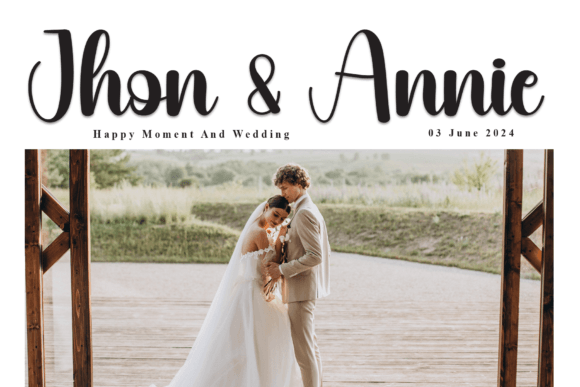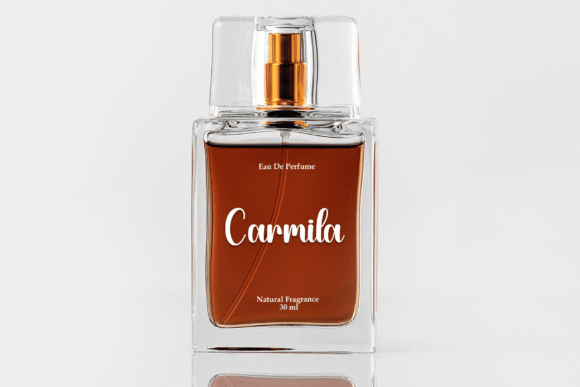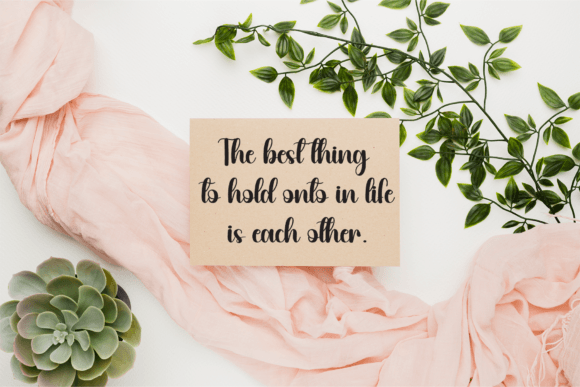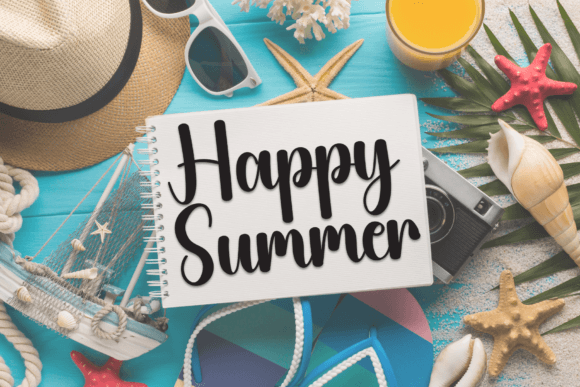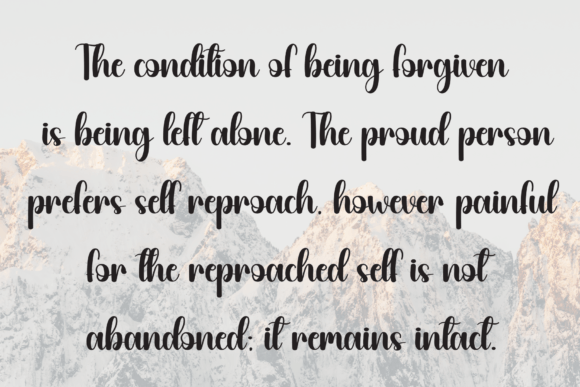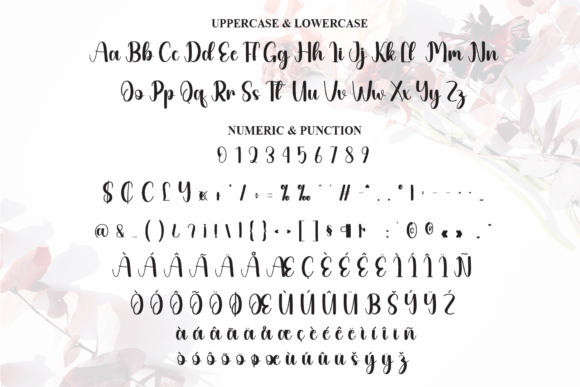
Introducing Delight Font: Elevate Your Designs with Elegance
Are you on the hunt for a font that exudes sophistication and style? Look no further than Delight Font, a stunning handwritten font that is sure to capture your heart. With its elegant touch and timeless design, Delight Font is the perfect addition to your favorite projects. In this article, we’ll dive into the world of Delight Font and explore its unique features, uses, and benefits.
A Beautifully Crafted Handwritten Font
Delight Font is a meticulously crafted handwritten font that boasts an incredibly distinct and timeless style. Its elegant touch is perfect for designers and crafters looking to add a touch of sophistication to their work. Whether you’re creating a logo, branding materials, or social media graphics, Delight Font is sure to make your designs stand out.
What Makes Delight Font So Special?
So, what sets Delight Font apart from other fonts? Here are just a few of its unique features:
- Elegant and Refined: Delight Font features an elegant and refined design that is perfect for high-end branding, luxury packaging, and sophisticated marketing materials.
- Handwritten with Love: This beautifully crafted font is handwritten with love and care, giving it a personal and unique touch.
- Timeless Style: Delight Font’s timeless design ensures that your work will remain stylish and relevant for years to come.
- Versatile: This font is incredibly versatile and can be used for a wide range of projects, from digital designs to print materials.
Delight Font is a dream come true for designers and crafters looking to elevate their work. Here are just a few ways you can use Delight Font to take your designs to the next level:
- Branding and Logo Design: Use Delight Font to create stunning logos and branding materials that exude elegance and sophistication.
- Social Media Graphics: Add a touch of style to your social media graphics, including Instagram posts, Facebook graphics, and Twitter headers.
- Packaging Design: Use Delight Font to create beautiful packaging designs that stand out on store shelves.
- Stationery and Invitations: Create stunning stationery and invitations that showcase your personal style.
Tips for Using Delight Font
Here are a few tips for getting the most out of Delight Font:
- Pair it with Other Fonts: Experiment with pairing Delight Font with other fonts to create a unique and eye-catching design.
- Use it in Headlines: Delight Font is perfect for headlines and titles, where its elegant design can really shine.
In conclusion, Delight Font is a beautiful and elegant handwritten font that is perfect for designers and crafters looking to elevate their work. With its timeless design, elegant touch, and versatility, Delight Font is sure to become a favorite in your font collection. So why wait? Fall in love with Delight Font and start creating spectacular designs today!